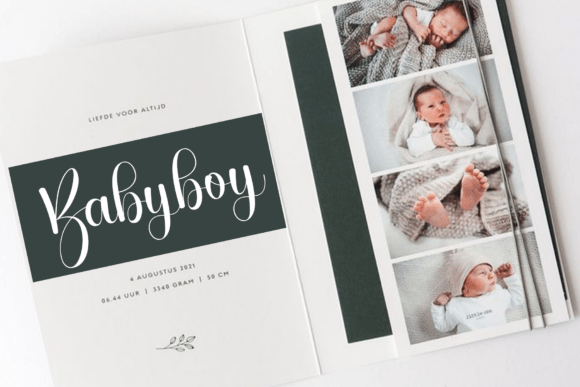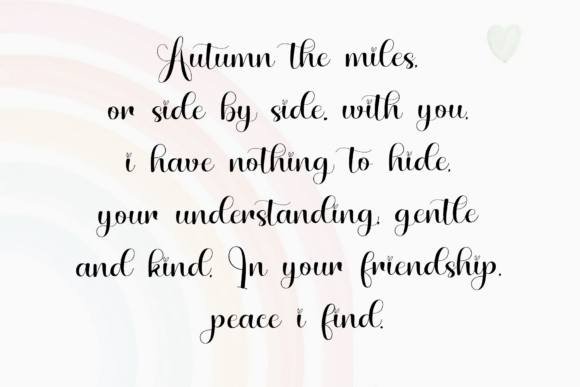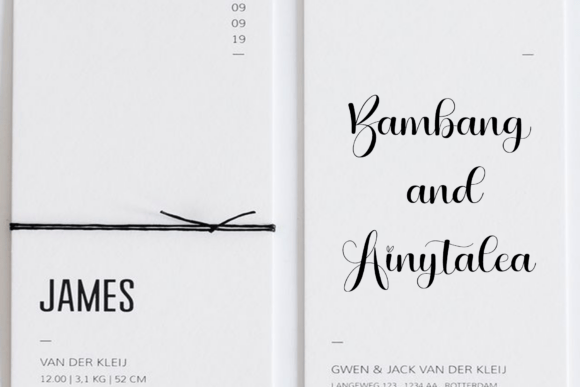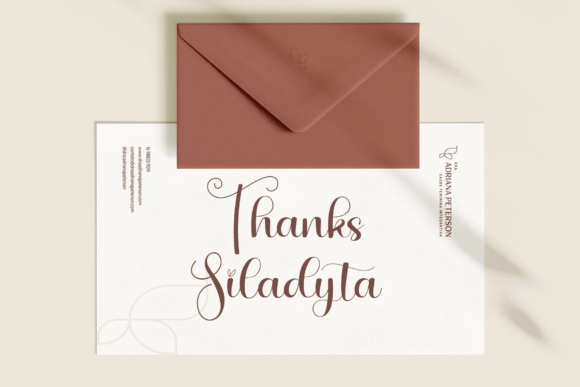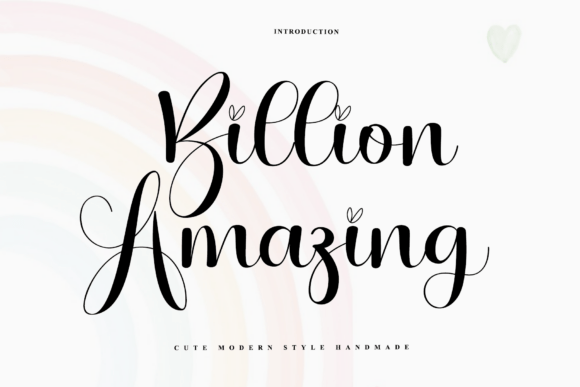
Billion Amazing Font: Elevate Your Brand with Sophistication and Flair
In the world of typography, a font can make or break a brand’s identity. For designers and crafters seeking to elevate their visual storytelling, Billion Amazing Font is a game-changer. This sophisticated and rhythmic script font strikes the perfect balance between calligraphic elegance and a warm, organic aesthetic, making it an ideal choice for artisanal food branding, boutique product packaging, upscale lifestyle marketing, and creative editorial titles.
The Characteristics of Billion Amazing Font
Billion Amazing Font boasts a distinctive character that sets it apart from other typefaces. Its high-contrast visual rhythm is achieved through thick, grounded downstrokes and delicate hairline connectors, creating a sense of harmony and balance. The font’s defining feature, however, is its use of sweeping, looping ascenders that evoke a sense of customized, artisanal artistry. This unique characteristic lends a personal touch to any design, making it perfect for brands seeking to convey a sense of exclusivity and high-end quality.
Applications for Billion Amazing Font
With its sophisticated and elegant appearance, Billion Amazing Font is versatile and can be applied to various design projects. Some of the ideal applications for this font include:
- Artisanal Food Branding: Billion Amazing Font is perfect for food brands seeking to convey a sense of high-quality, small-batch products. Its elegant and sophisticated appearance pairs well with rustic or natural textures, creating a compelling visual narrative.
- Boutique Product Packaging: For luxury brands, Billion Amazing Font offers a unique opportunity to create eye-catching packaging that stands out on store shelves. Its distinctive looping ascenders and high-contrast visual rhythm make it an excellent choice for product labels, tags, and packaging materials.
- Upscale Lifestyle Marketing: When targeting high-end consumers, a brand’s visual identity is crucial. Billion Amazing Font provides a sophisticated and elegant solution for marketing materials, such as brochures, flyers, and advertisements, helping to create a lasting impression on discerning audiences.
- Creative Editorial Titles: In editorial design, a font can make or break the visual appeal of a publication. Billion Amazing Font is an excellent choice for titles, headers, and subheadings, adding a touch of elegance and sophistication to any editorial piece.
Why Choose Billion Amazing Font?
With so many fonts available, why choose Billion Amazing Font? Here are a few compelling reasons:
- Unique Character: Billion Amazing Font boasts a distinctive character that sets it apart from other typefaces. Its sweeping, looping ascenders and high-contrast visual rhythm create a sense of customized, artisanal artistry.
- Versatility: This font is versatile and can be applied to various design projects, from artisanal food branding to upscale lifestyle marketing.
- Elegance and Sophistication: Billion Amazing Font exudes elegance and sophistication, making it perfect for brands seeking to convey a sense of high-end quality and exclusivity.
Tips for Using Billion Amazing Font
To get the most out of Billion Amazing Font, consider the following tips:
- Pair with Neutral Backgrounds: Billion Amazing Font pairs well with neutral backgrounds, allowing its elegant and sophisticated appearance to take center stage.
- Experiment with Colors: Don’t be afraid to experiment with different colors and textures to add depth and visual interest to your design.
- Use for Headings and Titles: Billion Amazing Font is perfect for headings and titles, adding a touch of elegance and sophistication to any design.
In conclusion, Billion Amazing Font is a sophisticated and rhythmic script font that offers a unique blend of calligraphic elegance and warm, organic aesthetic. Its high-contrast visual rhythm, sweeping looping ascenders, and delicate hairline connectors make it an ideal choice for artisanal food branding, boutique product packaging, upscale lifestyle marketing, and creative editorial titles. With its versatility, elegance, and sophistication, Billion Amazing Font is sure to elevate your brand’s visual identity and leave a lasting impression on your audience.